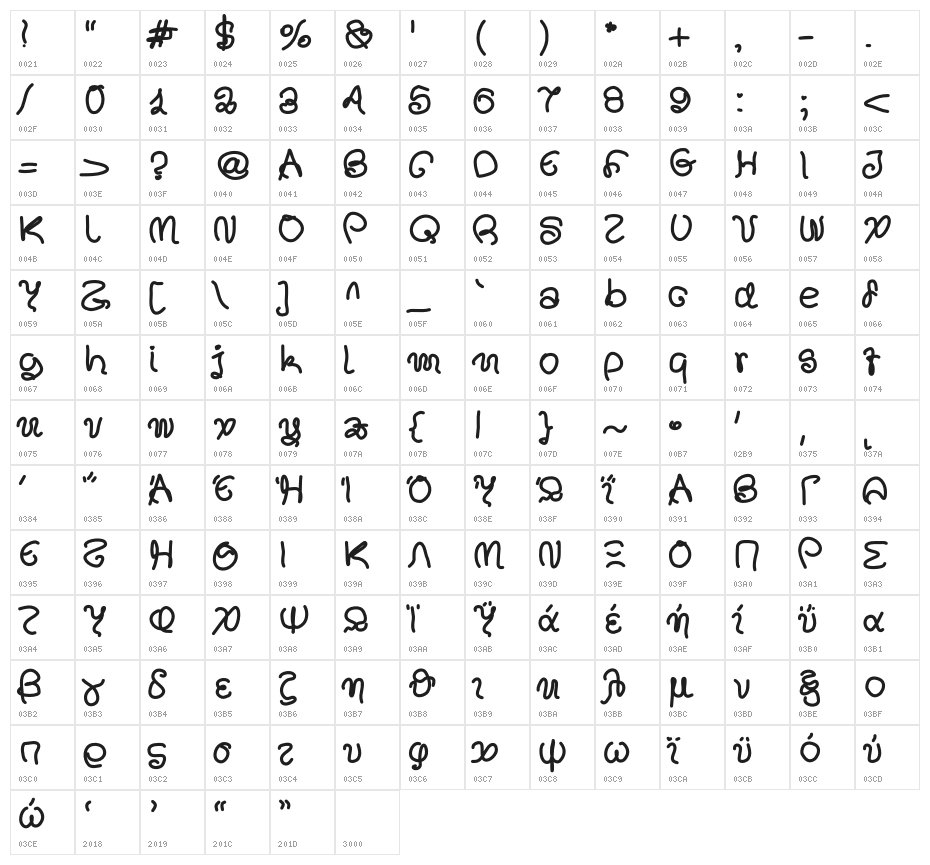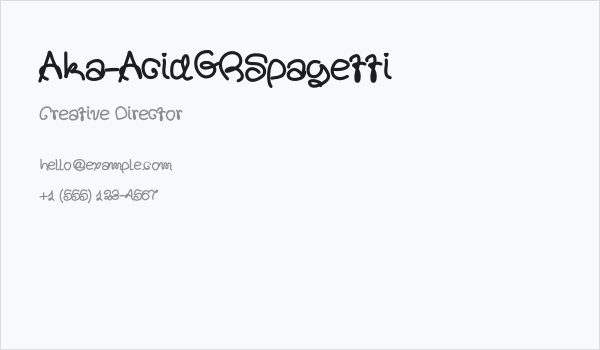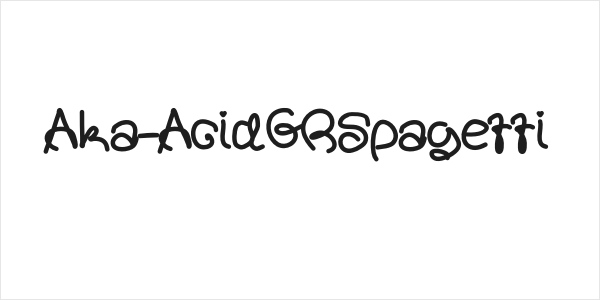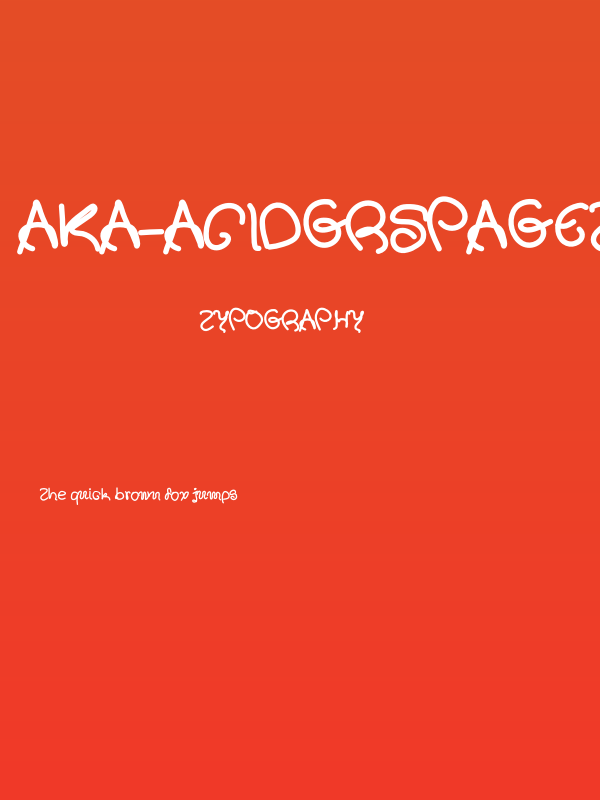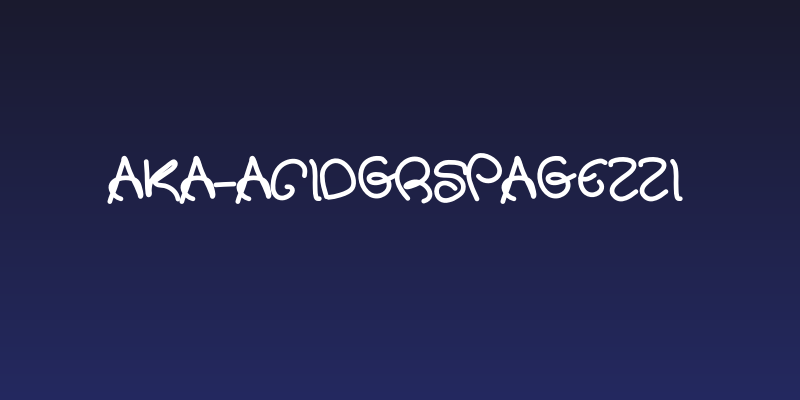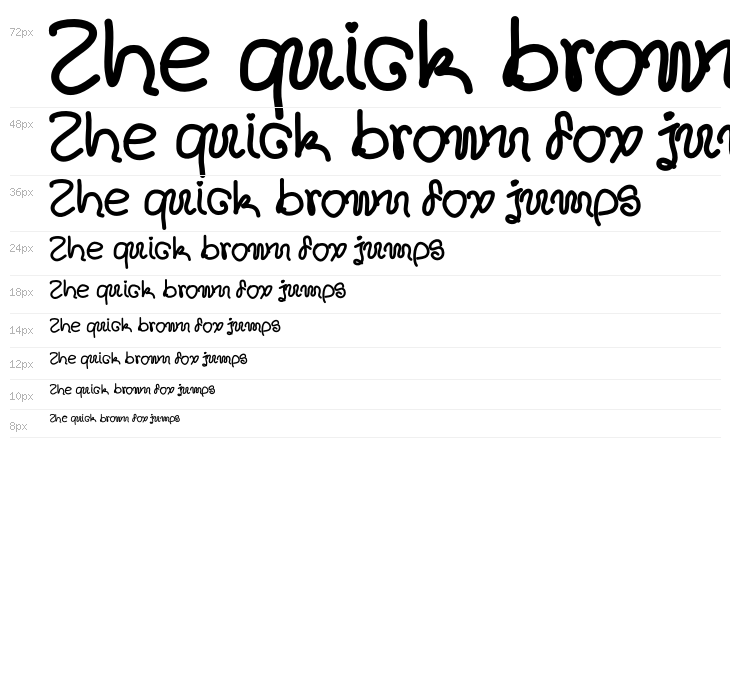
Aka-AcidGRSpagetti Font
Aka-AcidGRSpagetti Description
This font features a playful and whimsical design with a hand-drawn aesthetic. The characters are bold and rounded, with a consistent thickness throughout, giving it a cartoonish and friendly appearance. The letters have a unique, flowing style with some characters incorporating loops and curls, adding to its charm. The numbers and special characters maintain the same playful style, making it suitable for creative and informal projects. The font's overall look is casual and fun, perfect for designs that aim to convey a sense of joy and creativity.
| Proposed Projects | Ideal for children's books, comic strips, playful branding, and creative posters. |